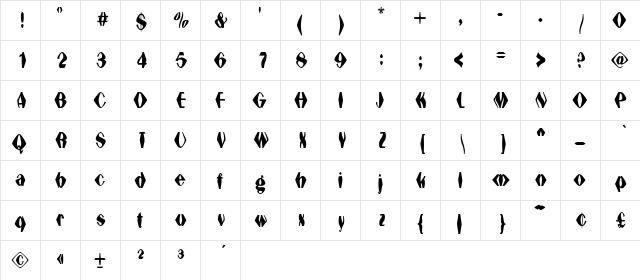
hexadonald Regular
Design Context for hexadonald Typeface
hexadonald is a composed and adaptable typeface that performs quietly and consistently across a wide range of design contexts.